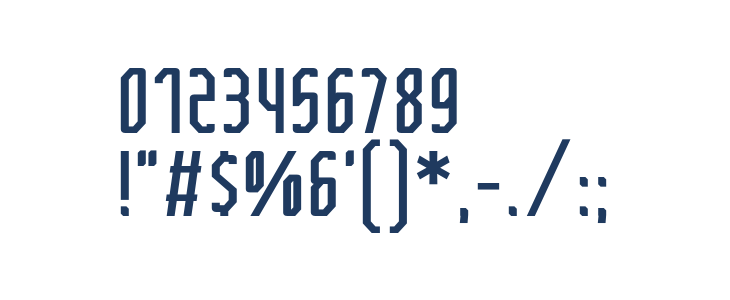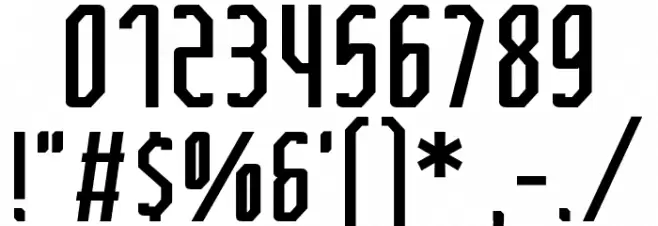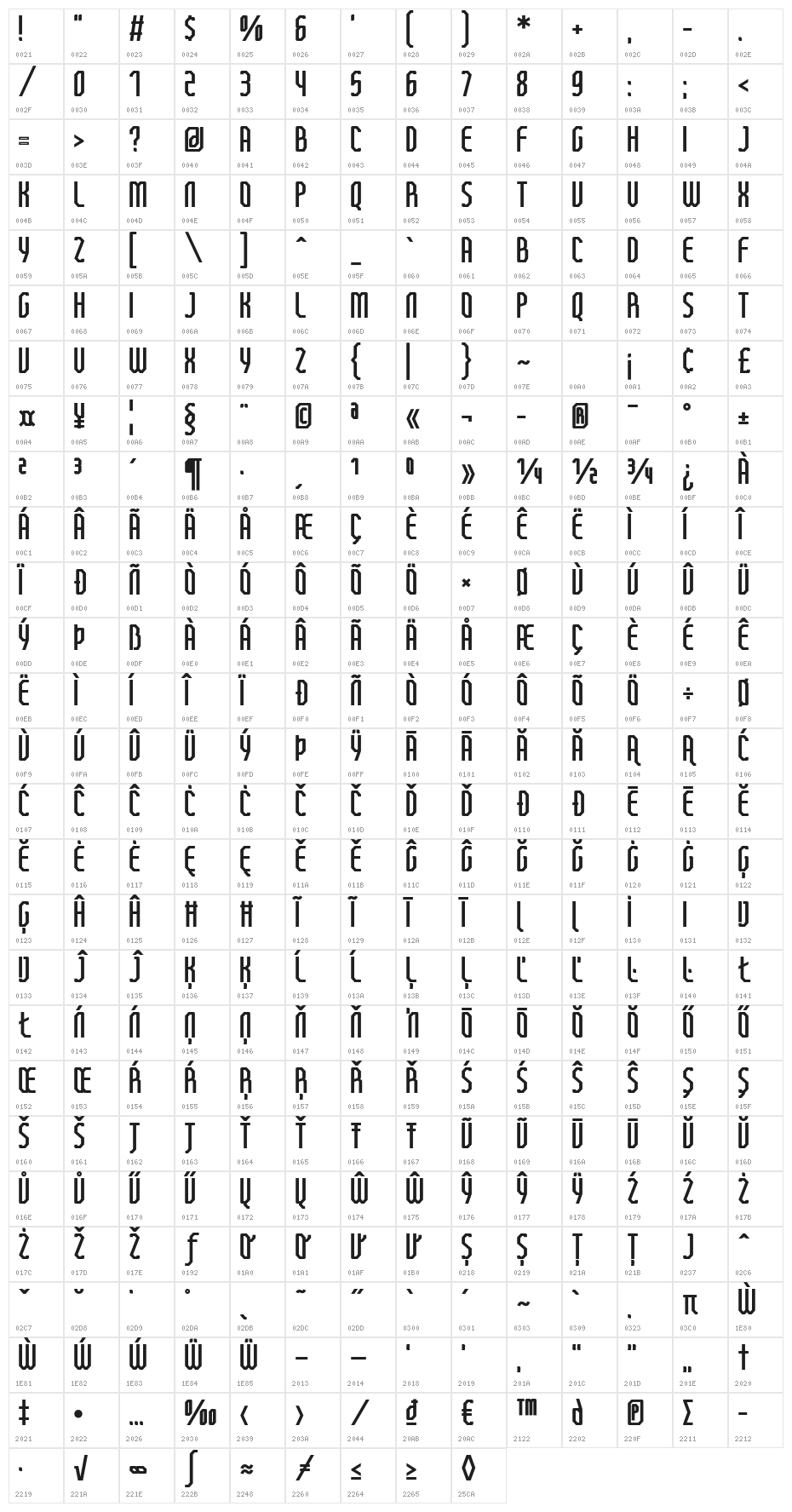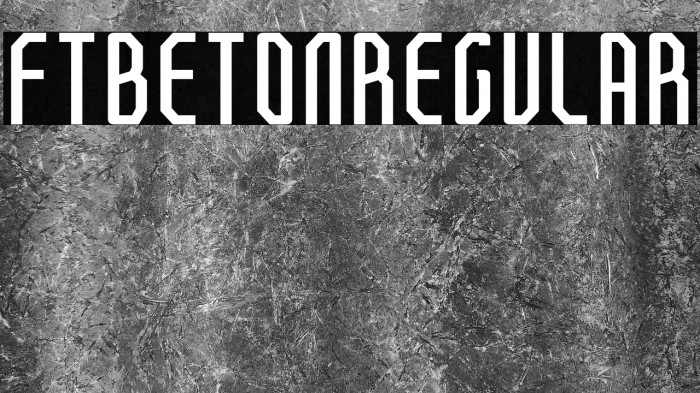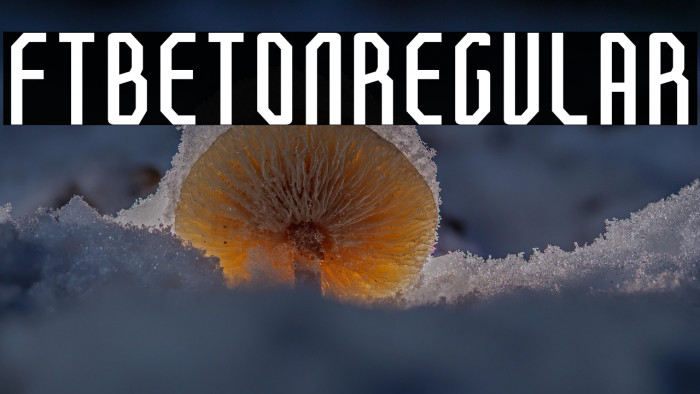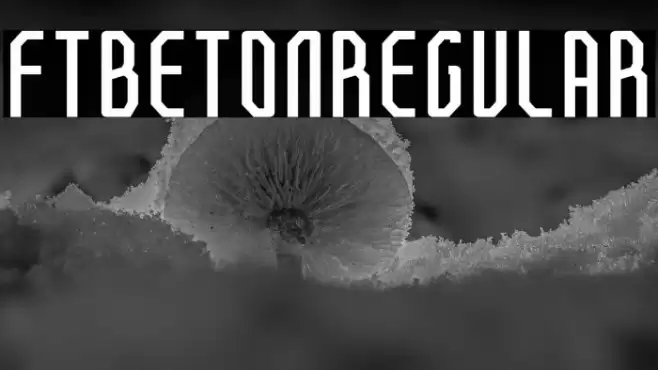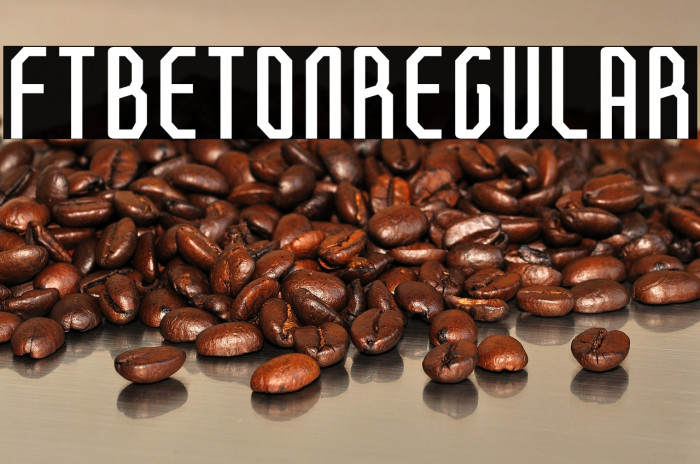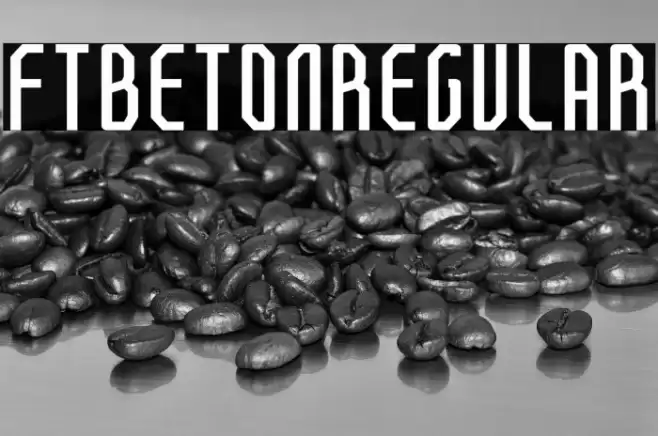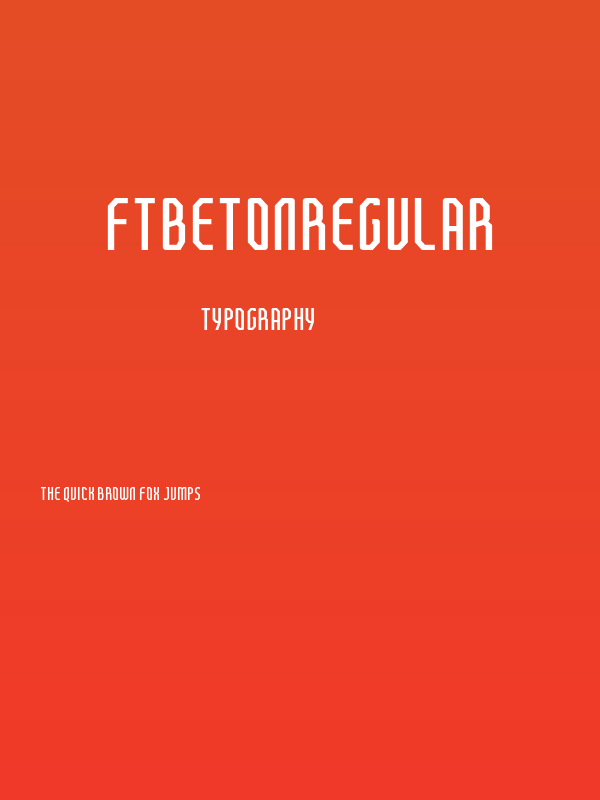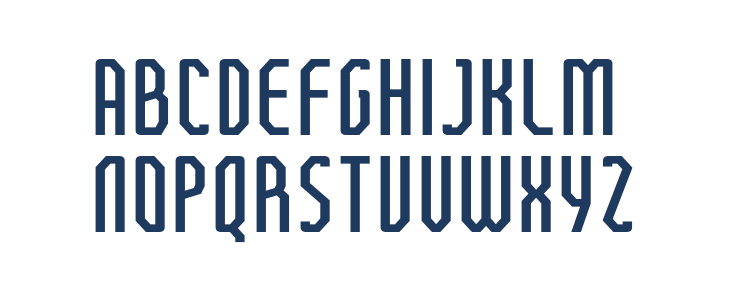
FTBetonRegular Font
FTBetonRegular Description
This font features a bold, geometric design with a strong presence. The characters are constructed with straight lines and sharp angles, giving it a modern and industrial feel. The uppercase letters are uniform in height, while the lowercase letters maintain a consistent style, enhancing readability. The numerals are distinct and align well with the overall aesthetic, making them suitable for various applications. The special characters are crafted with the same attention to detail, ensuring a cohesive look across all elements.
| Proposed Projects | Ideal for branding, signage, posters, and editorial design where a strong, modern look is desired. |